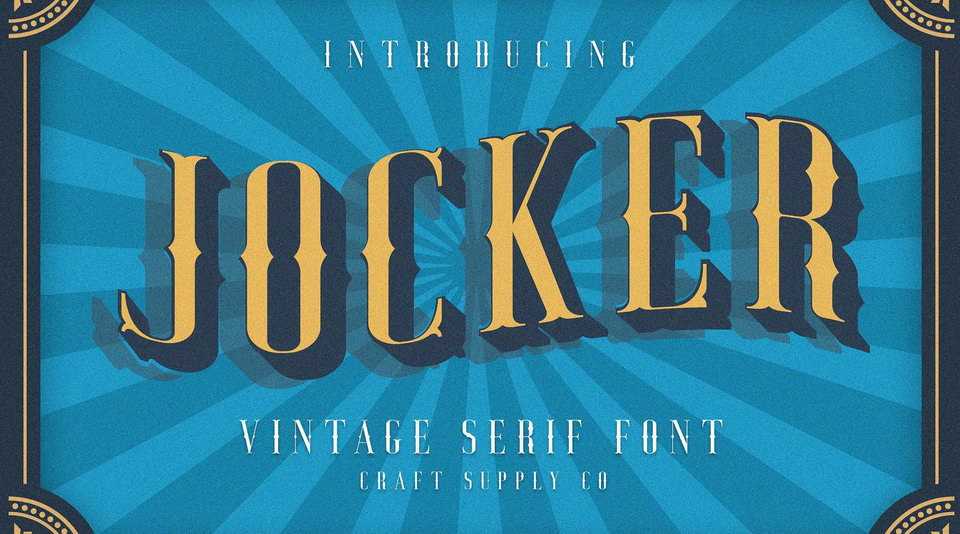
Download Jocker, a gorgeous serif style vintage display font family in 4 layers. It was the result of an exploration of Retro American and European bold sans serif lettering for advertising.
Designer: Craft Supply Co